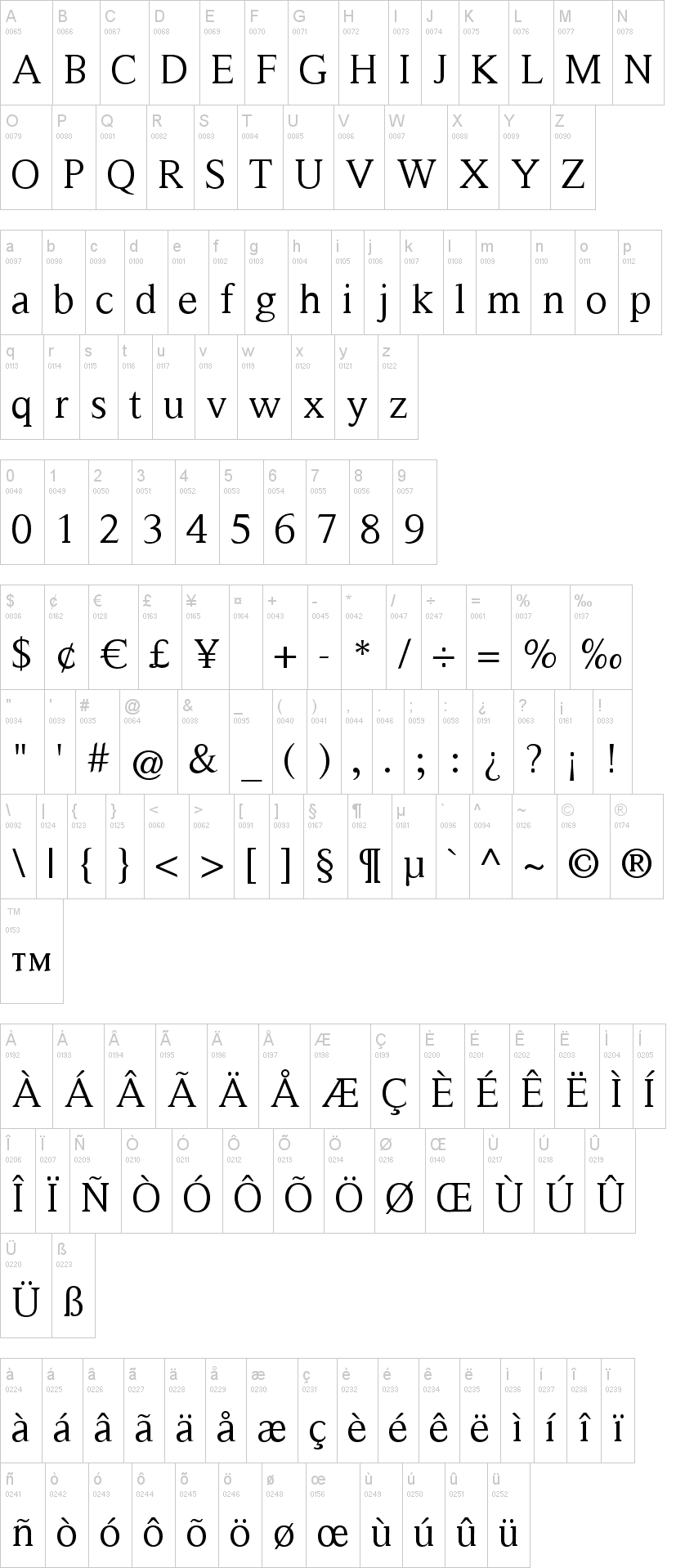
Victoria Serif Font
Victoria Serif Font - Web victoria serif à € by tipografia vittoria. Web download victoria serif font · free for personal use · victoria serif è una font gratuito per uso personale, nel caso di distribuzione del font alle stesse condizioni di licenza qui presenti siete pregati. 69,178 downloads (8 yesterday) free for personal use. Click now to create a custom image with your own words that you can download. Web free download of victoria serif font. Web victoria serif è un font gratuito srif dalle linee classiche ed essenziali, adatto per utilizzi istituzionali, per liberi professionisti ed altre attività che fanno della tradizionalità il proprio biglietto da visita.
Web download victoria serif font · free for personal use · victoria serif è una font gratuito per uso personale, nel caso di distribuzione del font alle stesse condizioni di licenza qui presenti siete pregati. Click now to create a custom image with your own words that you can download. 69,178 downloads (8 yesterday) free for personal use. Web free download of victoria serif font. Web victoria serif è un font gratuito srif dalle linee classiche ed essenziali, adatto per utilizzi istituzionali, per liberi professionisti ed altre attività che fanno della tradizionalità il proprio biglietto da visita. Web victoria serif à € by tipografia vittoria.
Web free download of victoria serif font. Web victoria serif à € by tipografia vittoria. Web victoria serif è un font gratuito srif dalle linee classiche ed essenziali, adatto per utilizzi istituzionali, per liberi professionisti ed altre attività che fanno della tradizionalità il proprio biglietto da visita. Click now to create a custom image with your own words that you can download. Web download victoria serif font · free for personal use · victoria serif è una font gratuito per uso personale, nel caso di distribuzione del font alle stesse condizioni di licenza qui presenti siete pregati. 69,178 downloads (8 yesterday) free for personal use.
Web free download of victoria serif font. Web victoria serif è un font gratuito srif dalle linee classiche ed essenziali, adatto per utilizzi istituzionali, per liberi professionisti ed altre attività che fanno della tradizionalità il proprio biglietto da visita. Click now to create a custom image with your own words that you can download. Web download victoria serif font ·.
Web victoria serif à € by tipografia vittoria. Click now to create a custom image with your own words that you can download. Web free download of victoria serif font. 69,178 downloads (8 yesterday) free for personal use. Web download victoria serif font · free for personal use · victoria serif è una font gratuito per uso personale, nel caso.
Victoria Serif font by Tipografia Vittoria FontRiver
Web victoria serif è un font gratuito srif dalle linee classiche ed essenziali, adatto per utilizzi istituzionali, per liberi professionisti ed altre attività che fanno della tradizionalità il proprio biglietto da visita. Click now to create a custom image with your own words that you can download. Web victoria serif à € by tipografia vittoria. Web free download of victoria.
Victoria Serif font
Web free download of victoria serif font. Web victoria serif à € by tipografia vittoria. 69,178 downloads (8 yesterday) free for personal use. Web victoria serif è un font gratuito srif dalle linee classiche ed essenziali, adatto per utilizzi istituzionali, per liberi professionisti ed altre attività che fanno della tradizionalità il proprio biglietto da visita. Click now to create a.
Victoria Serif Font
69,178 downloads (8 yesterday) free for personal use. Click now to create a custom image with your own words that you can download. Web free download of victoria serif font. Web victoria serif à € by tipografia vittoria. Web victoria serif è un font gratuito srif dalle linee classiche ed essenziali, adatto per utilizzi istituzionali, per liberi professionisti ed altre.
Victoria Serif Font
Web free download of victoria serif font. Click now to create a custom image with your own words that you can download. Web victoria serif à € by tipografia vittoria. 69,178 downloads (8 yesterday) free for personal use. Web victoria serif è un font gratuito srif dalle linee classiche ed essenziali, adatto per utilizzi istituzionali, per liberi professionisti ed altre.
Victoria Serif font
Web download victoria serif font · free for personal use · victoria serif è una font gratuito per uso personale, nel caso di distribuzione del font alle stesse condizioni di licenza qui presenti siete pregati. Click now to create a custom image with your own words that you can download. Web victoria serif à € by tipografia vittoria. 69,178 downloads.
Victoria Serif Font FREE Download & Similar Fonts FontGet
69,178 downloads (8 yesterday) free for personal use. Web victoria serif è un font gratuito srif dalle linee classiche ed essenziali, adatto per utilizzi istituzionali, per liberi professionisti ed altre attività che fanno della tradizionalità il proprio biglietto da visita. Click now to create a custom image with your own words that you can download. Web free download of victoria.
Victoria Serif Font FREE Download & Similar Fonts FontGet
Web download victoria serif font · free for personal use · victoria serif è una font gratuito per uso personale, nel caso di distribuzione del font alle stesse condizioni di licenza qui presenti siete pregati. Web victoria serif à € by tipografia vittoria. Web free download of victoria serif font. 69,178 downloads (8 yesterday) free for personal use. Web victoria.
Web Download Victoria Serif Font · Free For Personal Use · Victoria Serif È Una Font Gratuito Per Uso Personale, Nel Caso Di Distribuzione Del Font Alle Stesse Condizioni Di Licenza Qui Presenti Siete Pregati.
Web victoria serif à € by tipografia vittoria. 69,178 downloads (8 yesterday) free for personal use. Web victoria serif è un font gratuito srif dalle linee classiche ed essenziali, adatto per utilizzi istituzionali, per liberi professionisti ed altre attività che fanno della tradizionalità il proprio biglietto da visita. Web free download of victoria serif font.